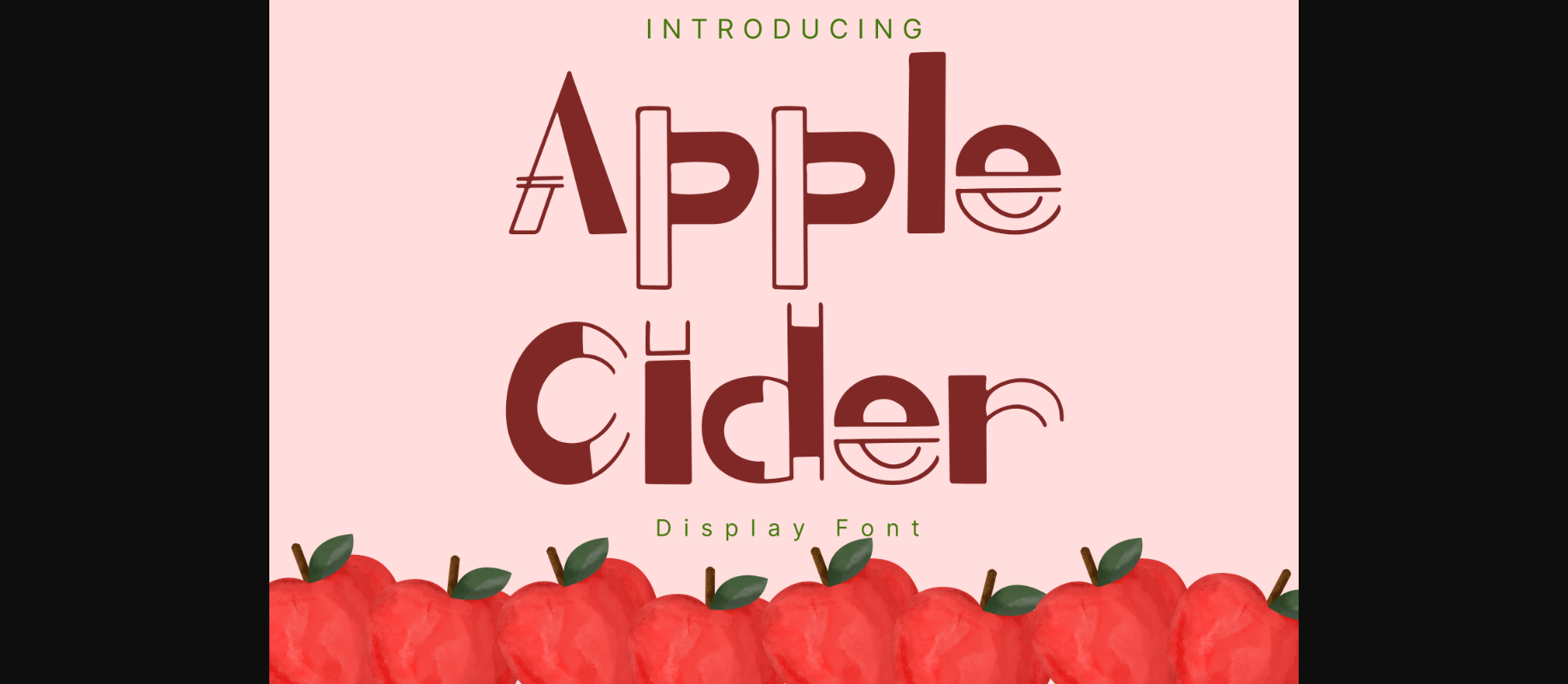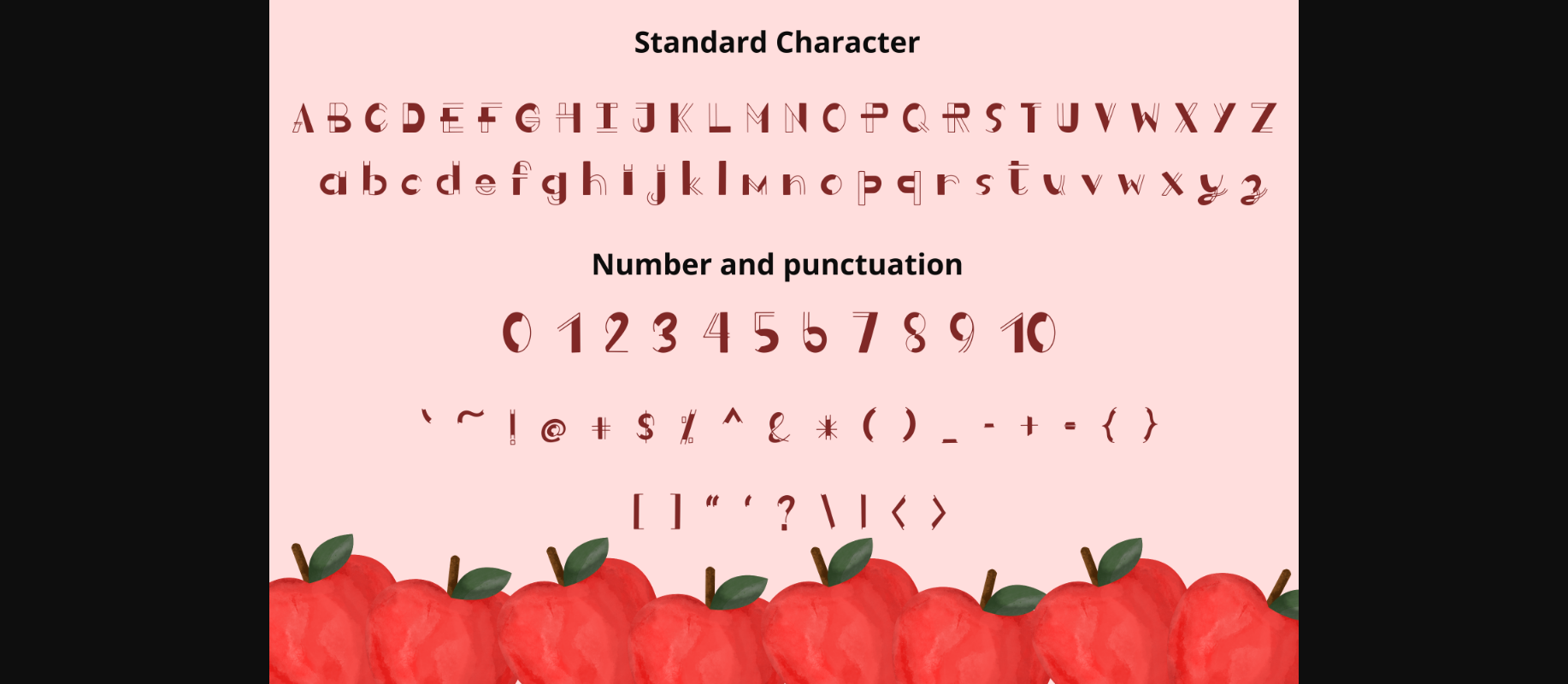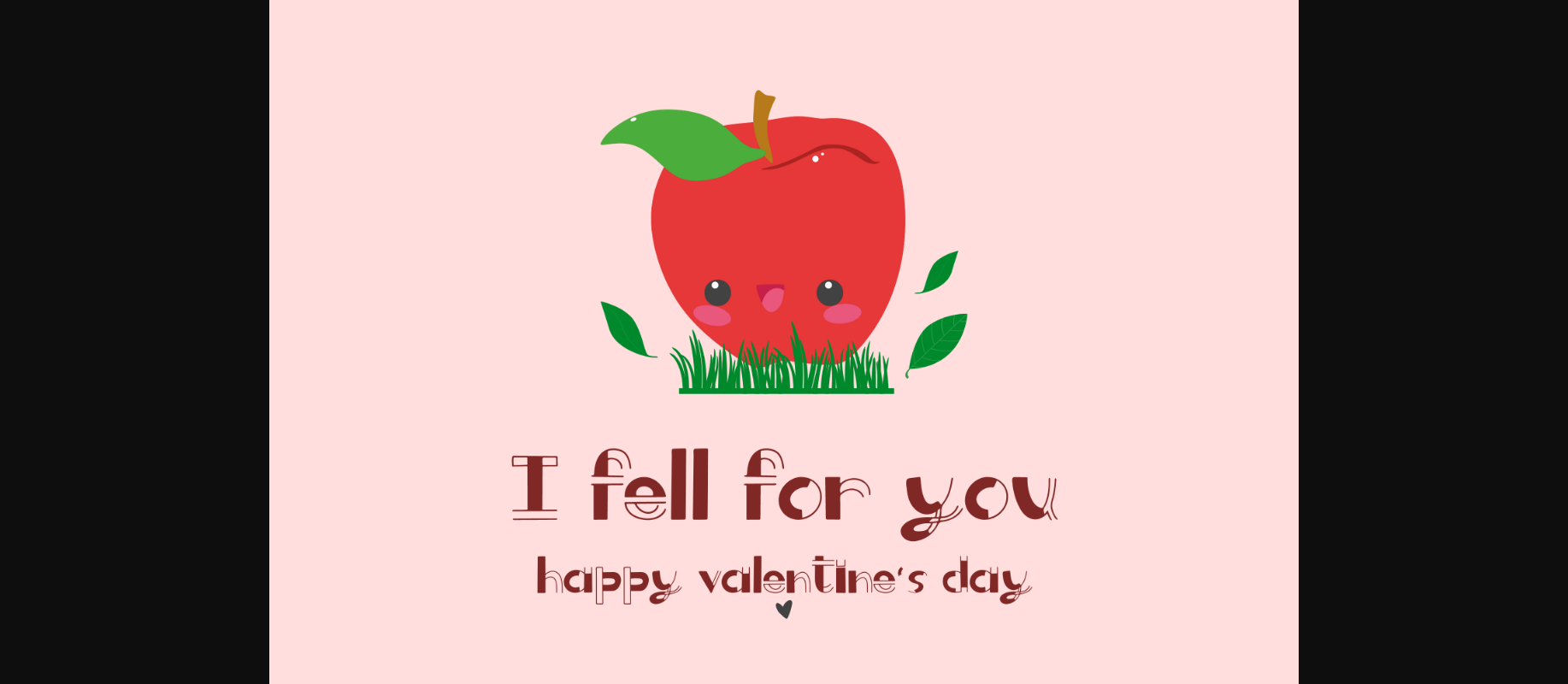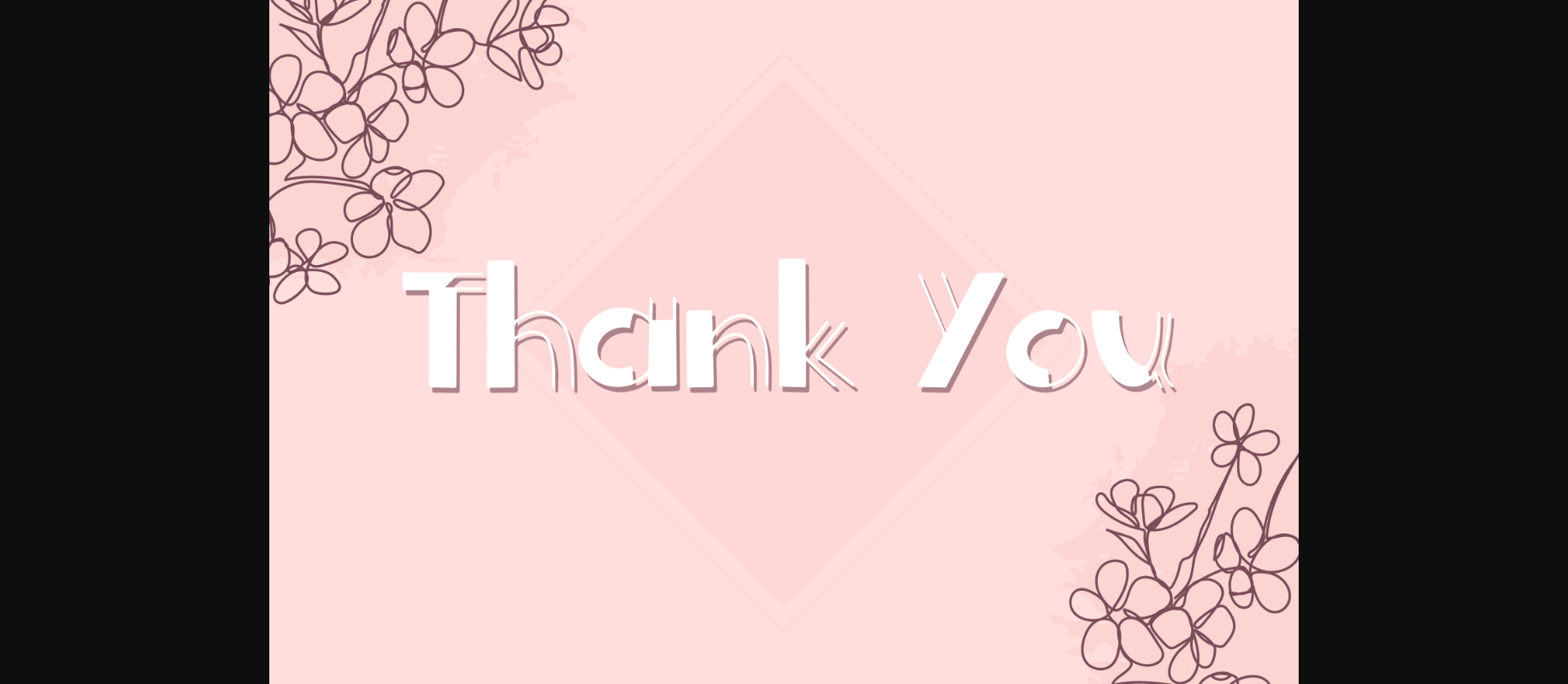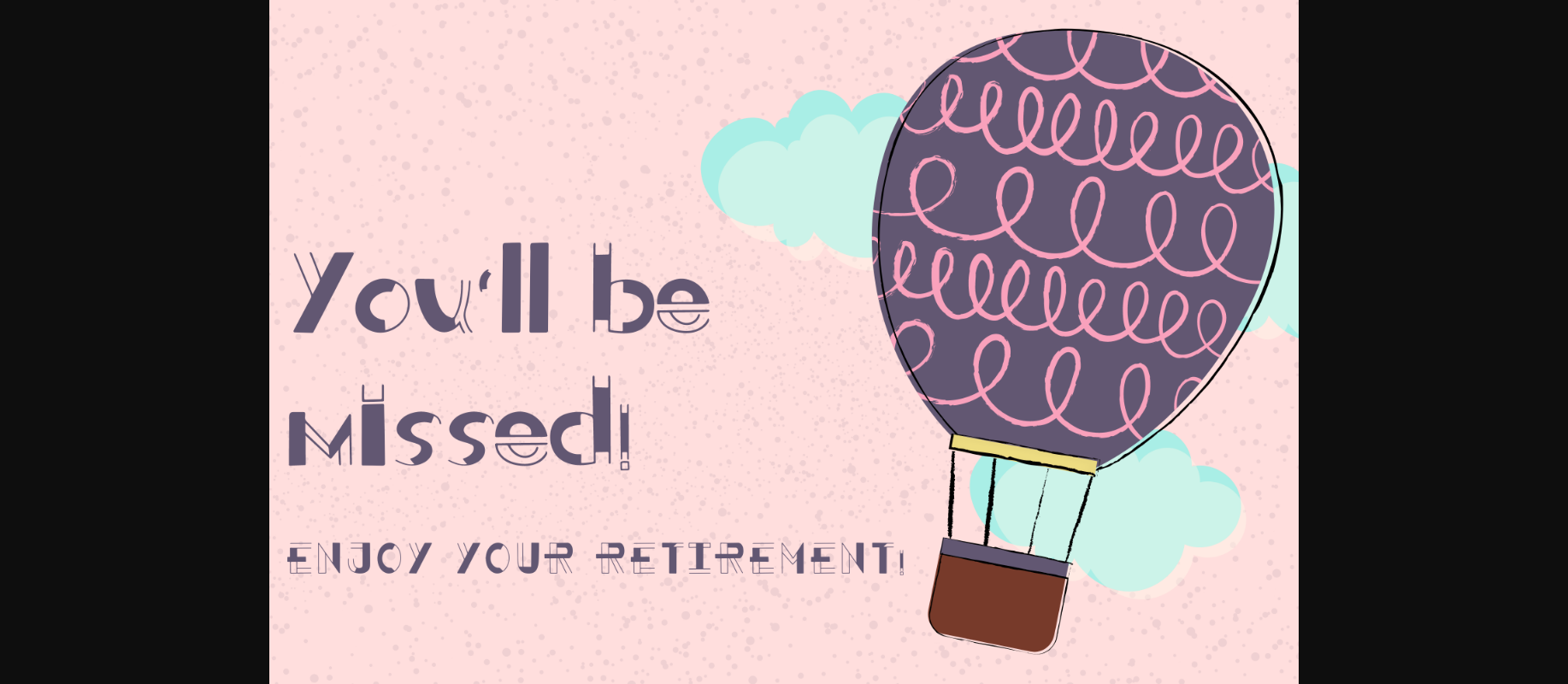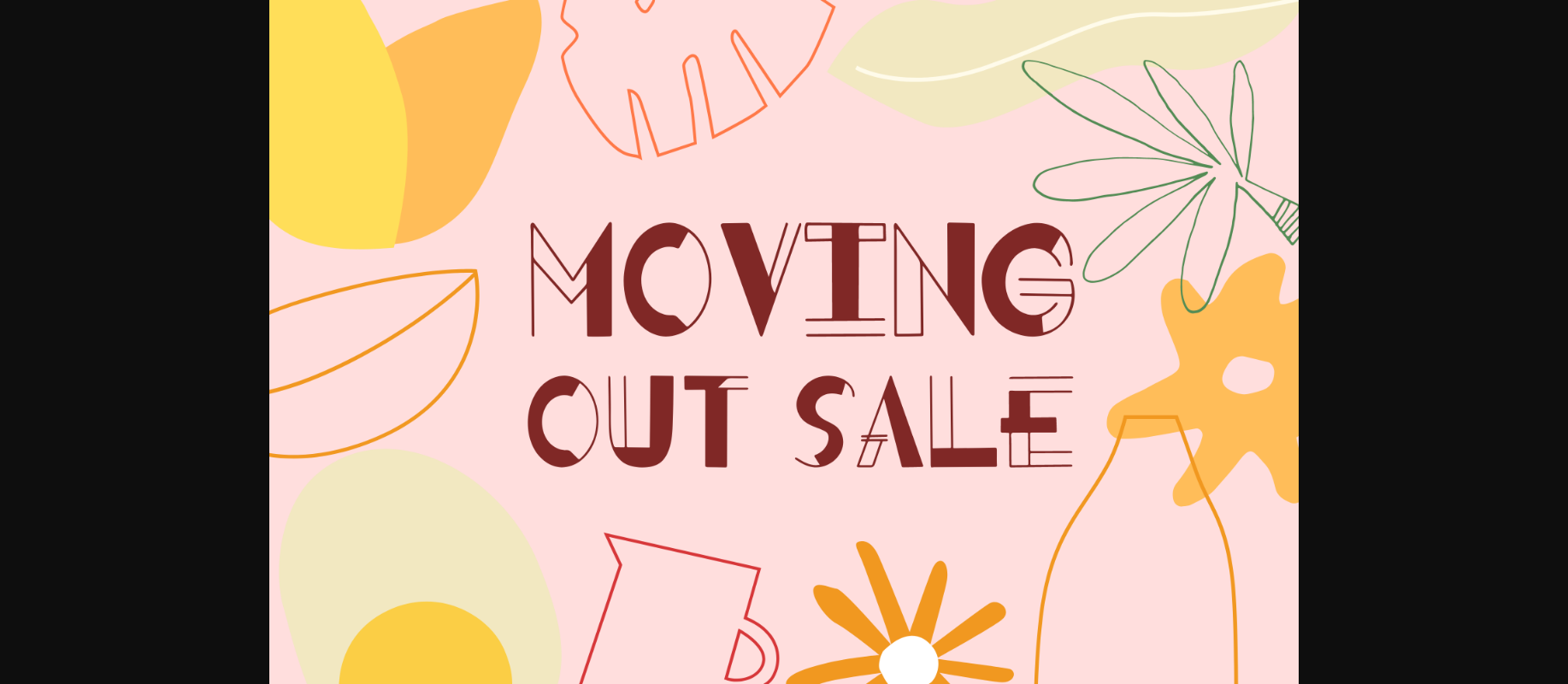
HomeDecorative FontsApple Cider Font Decorative Fonts Apple Cider Font FacebookXPinterestWhatsApp 1 of 8 ... Apple Cider Font Poster 2... Apple Cider Font Poster 3... Apple Cider Font Poster 4... Apple Cider Font Poster 5... Apple Cider Font Poster 6... Apple Cider Font Poster 7... Apple Cider Font Poster 8... About Apple Cider Font Apple Cider is a whimsical and clean decorative font. It can easily be matched to an incredibly large set of projects, so add it to your creative ideas and notice how it makes them stand out! DOWNLOAD NOW People also explored The Vintage Wedding Font Lumo Font Sweetness Script Font Cemporeng Script Font Neomia Font Romance Font Summer Camp Font Sweet Heart Font Mountain Font 309 0 TagsApple Cider Font Previous articleMexico Art FontNext articleSpeedy Font LEAVE A REPLY Cancel reply Comment: Please enter your comment! Name:* Please enter your name here Email:* You have entered an incorrect email address! Please enter your email address here Website: Save my name, email, and website in this browser for the next time I comment. Personal Use Free Aelten Personal Use Free Read more about this font Little Things Duo Personal Use Free Read more about this font Wintersoul Personal Use Free Read more about this font Meloche Book Personal Use Free Read more about this font BLOG Free Fonts Risk: Why Free Fonts Can Be Dangerous for Designers Free Fonts Risk: Why Free Fonts Can Be Dangerous for Designers Using free fonts is a common practice in web and graphic design. However, the... Where to Buy American Fonts Online in 2024 Top 7 Google Fonts Alternatives for Faster and Privacy-Friendly Web Design (2025) Best Fonts for YouTube Videos: Make Your Thumbnails Stand Out